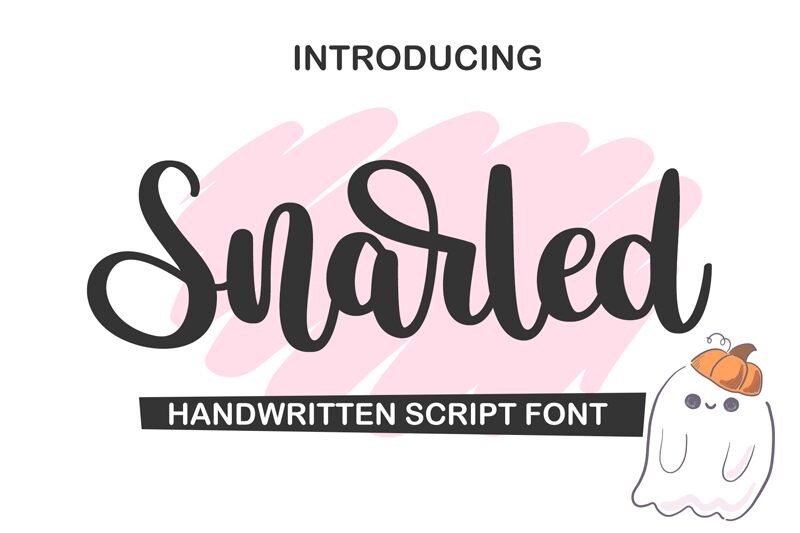
Snarled, the semi-bold calligraphy font designed by Bearytype, is a perfect blend of elegance and boldness. Its unique style adds a touch of sophistication to any design project. This font is perfect for luxury branding, wedding invitations, and editorial layouts that require a touch of refined typography. The elongated curves and sharp edges of Snarled make it an excellent choice for fashion-related projects such as magazine covers, lookbooks, and ad campaigns. Snarled is also ideal for creating social media graphics that demand attention with its distinct style. Try out Snarled today to elevate your designs!
Snarled